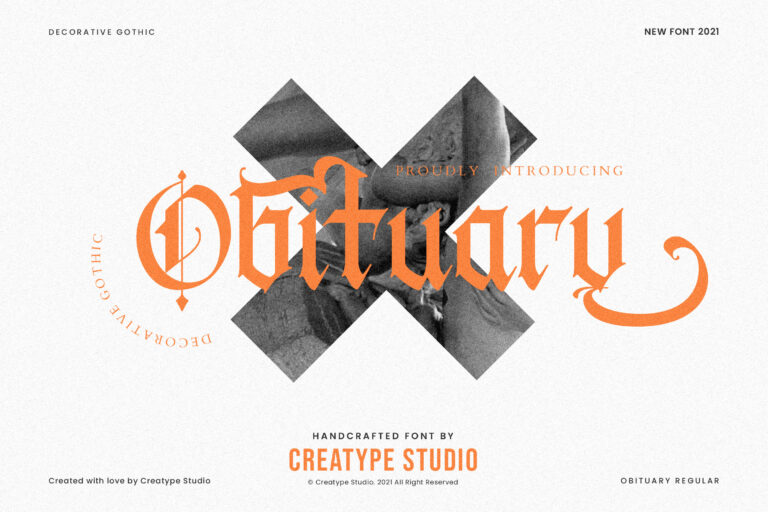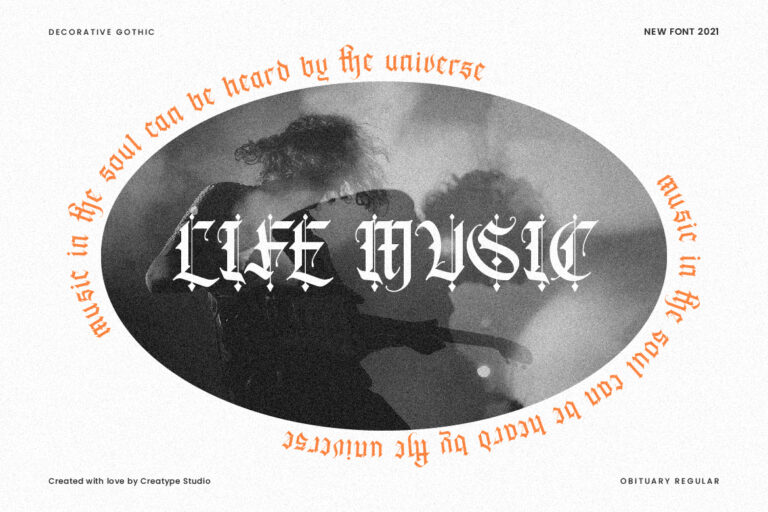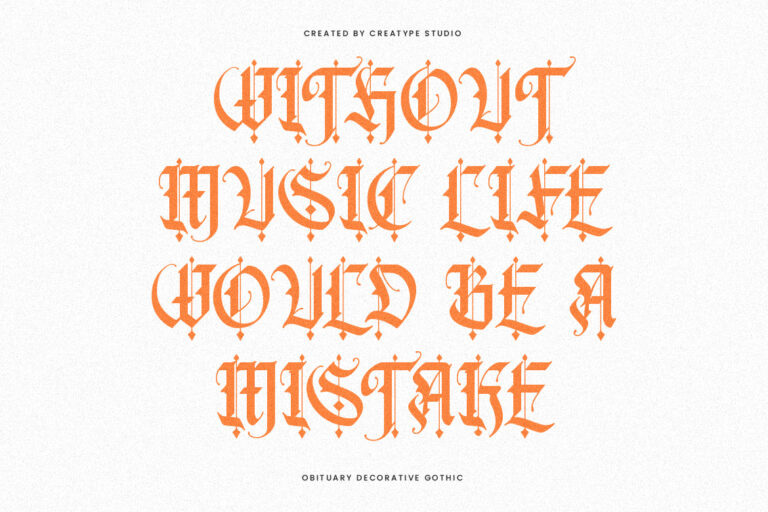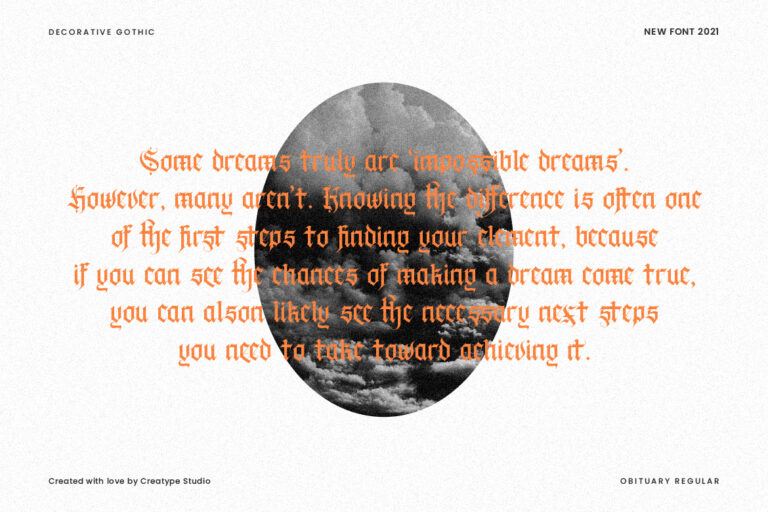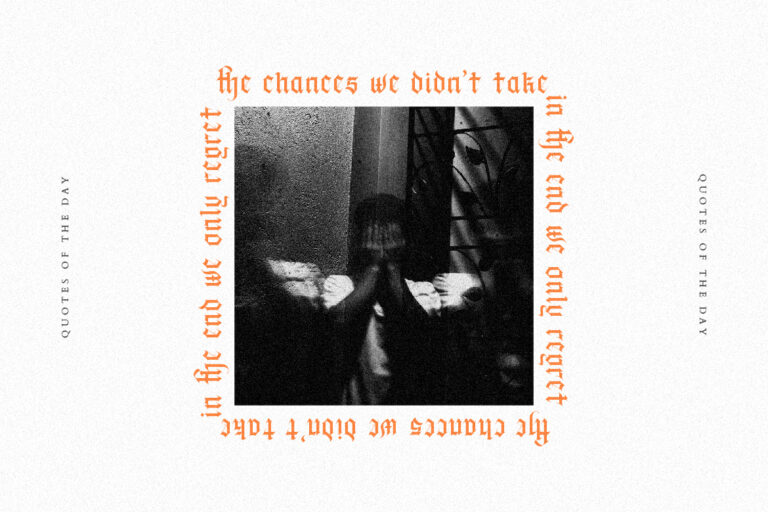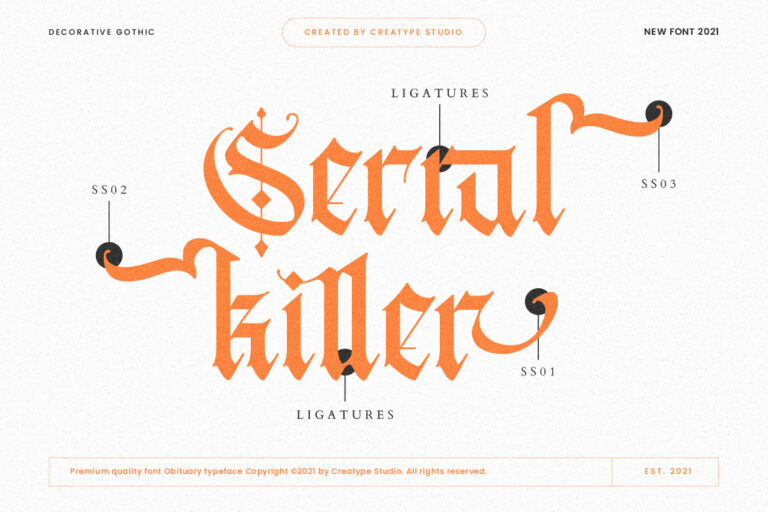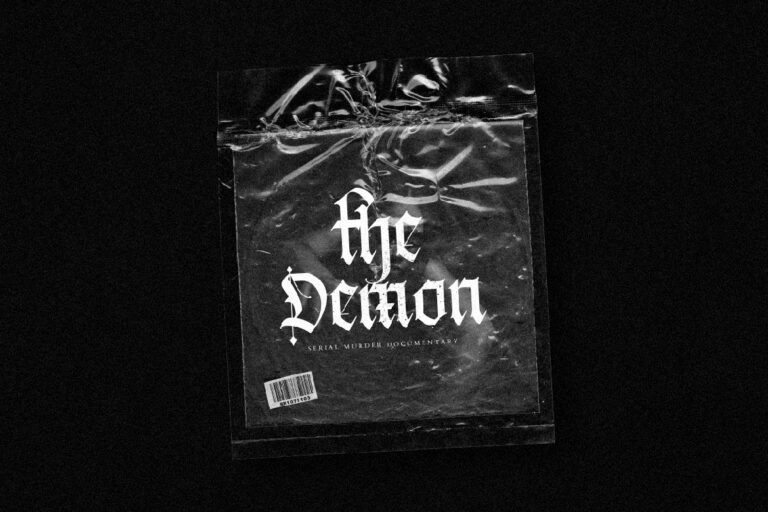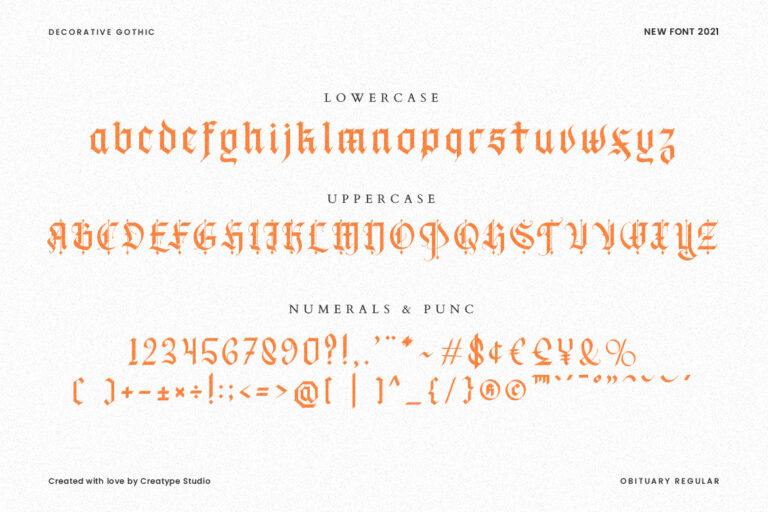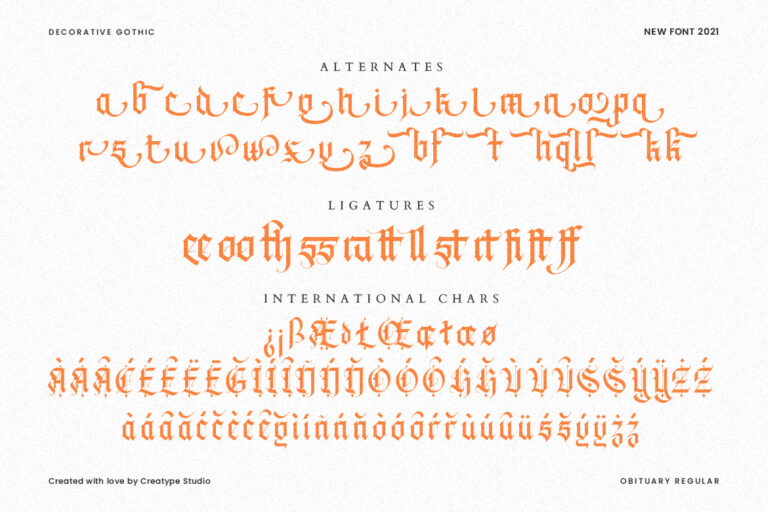
Obituary Decorative Gothic
Obituary is a decorative gothic is an elegant, clean and trendy blackletter font. With a unique letter shape, this font is very beautiful and decorative, suitable for all your products.
• Ton of glyphs
• Ligature & Alternate